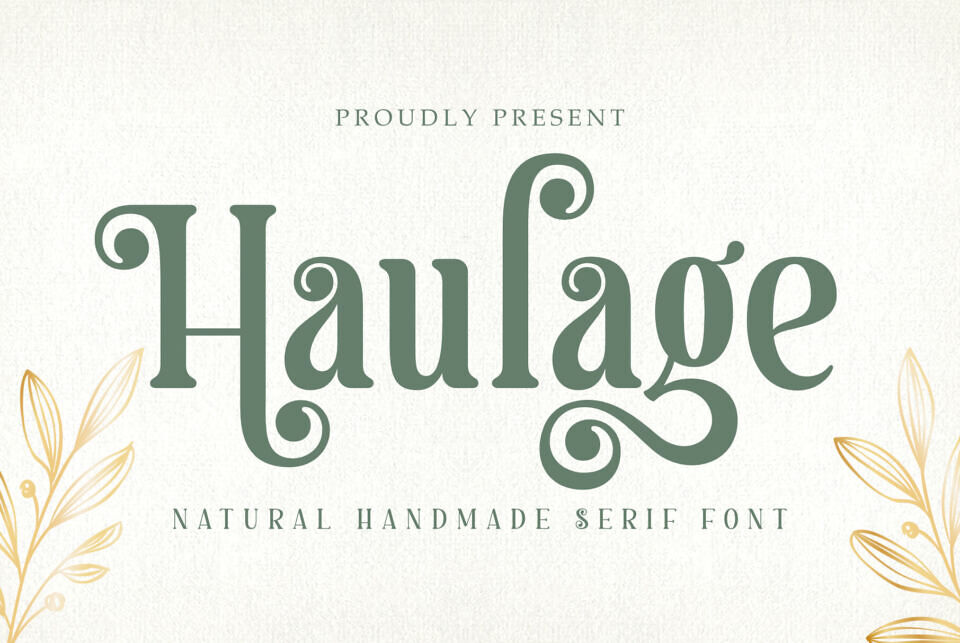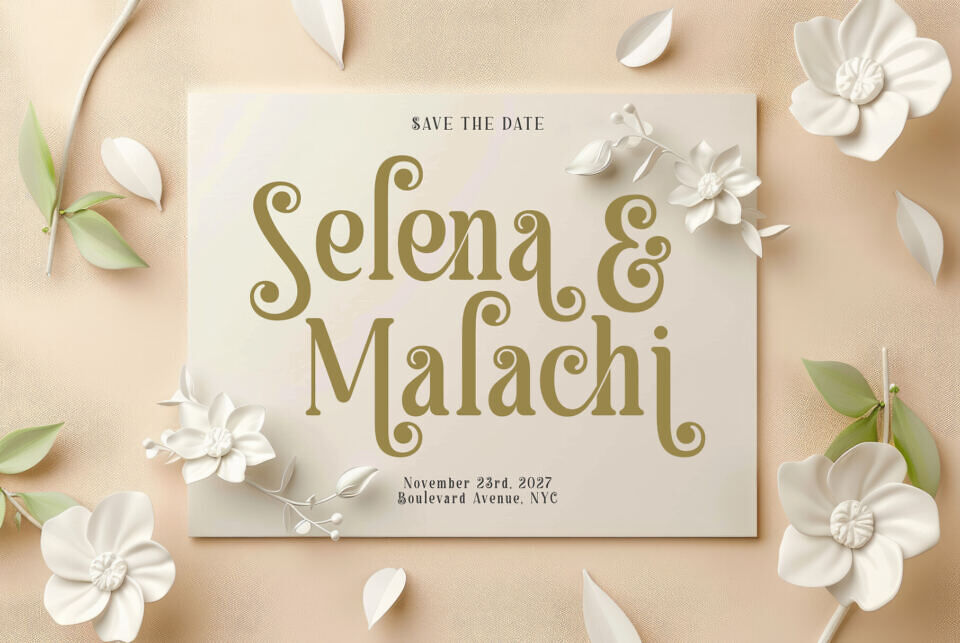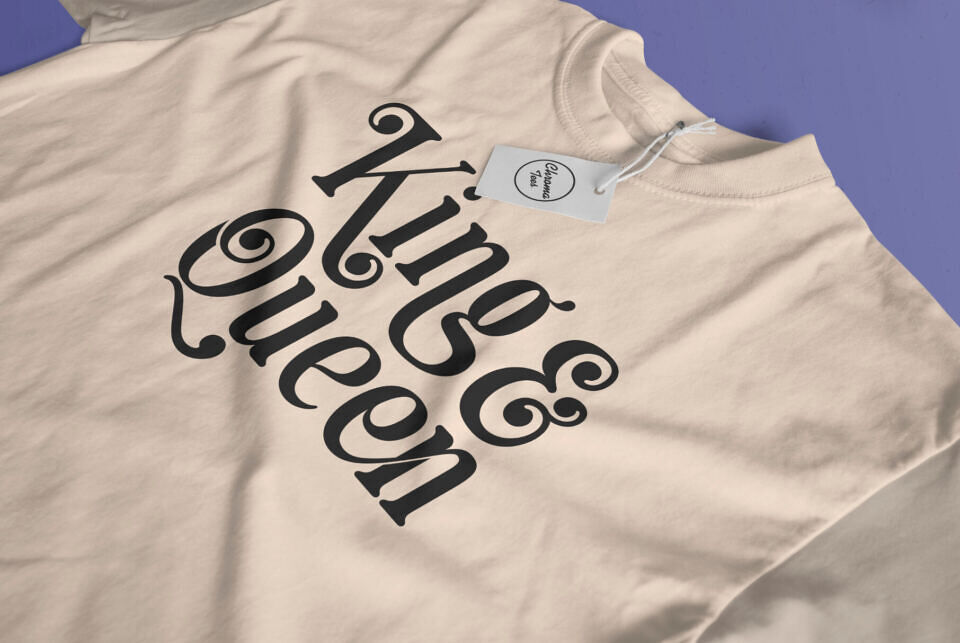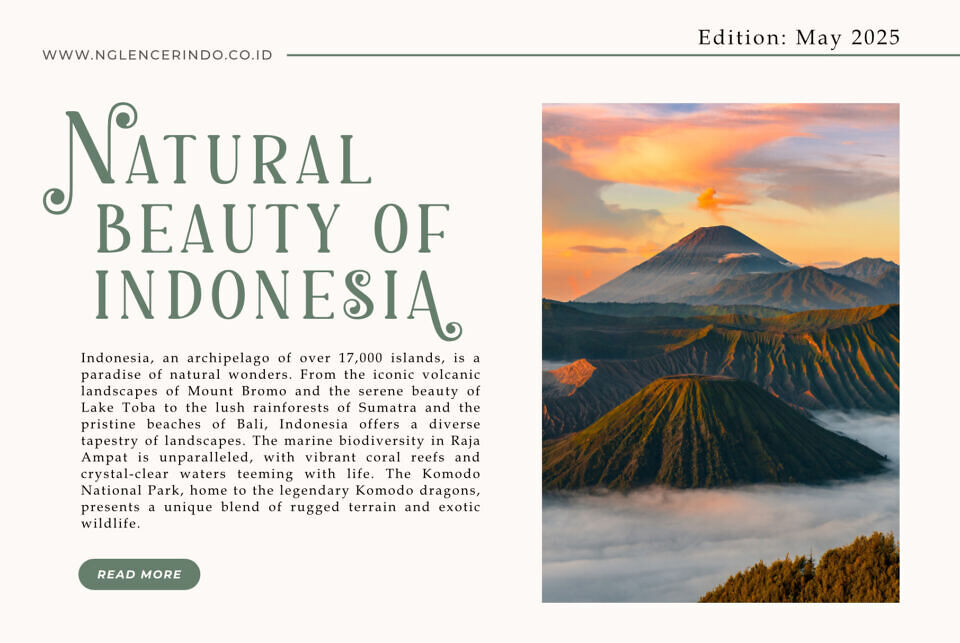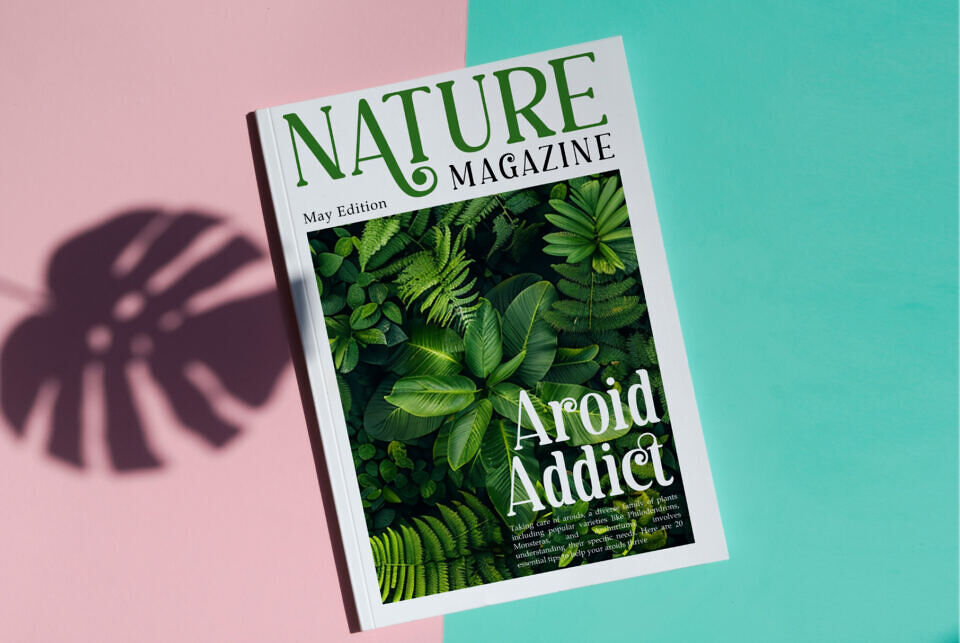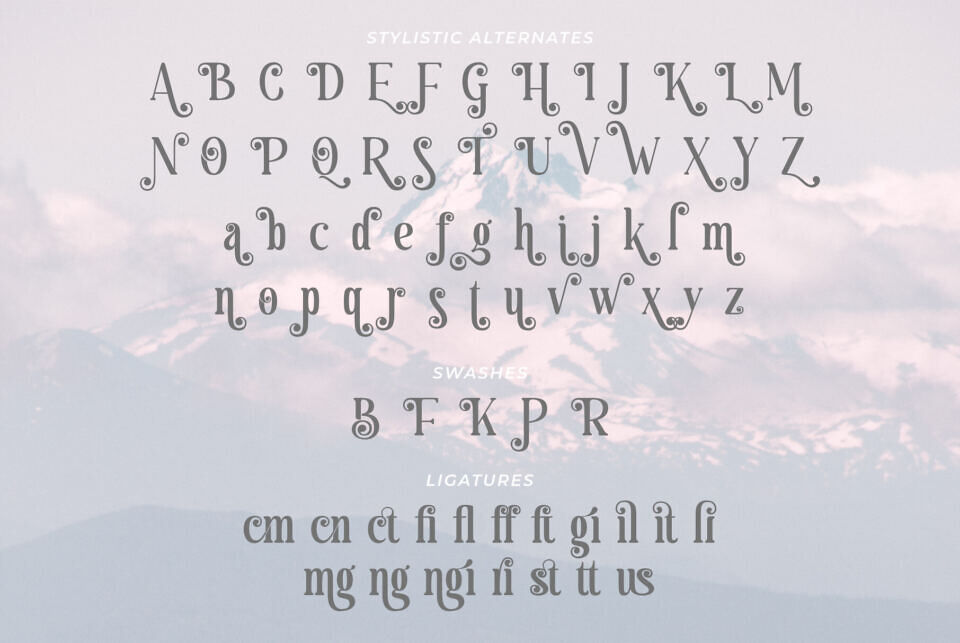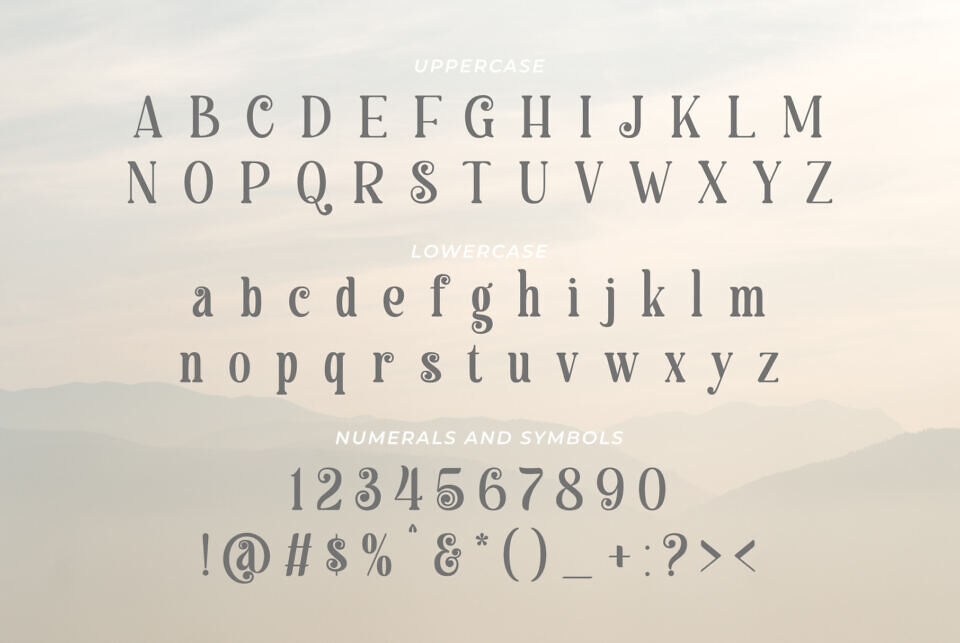
Haulage Font
Introducing Haulage, a natural handmade serif font that exudes timeless elegance and charm. Crafted with meticulous attention to detail, Haulage boasts a variety of unique, natural, and classic characters, especially in its ligatures and alternates.
Each letter is designed to capture the essence of vintage aesthetics, making it a perfect choice for projects that require a touch of classic sophistication.